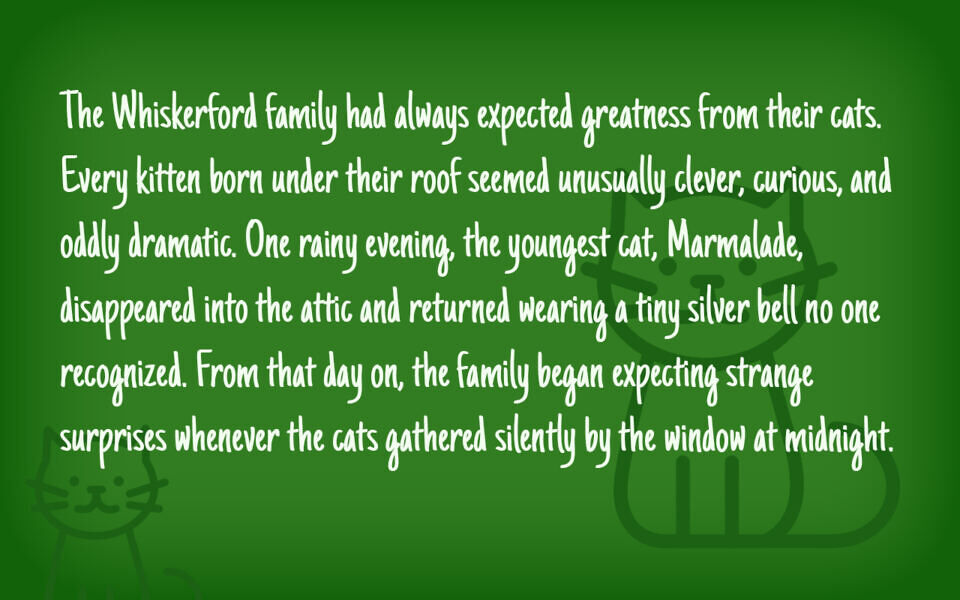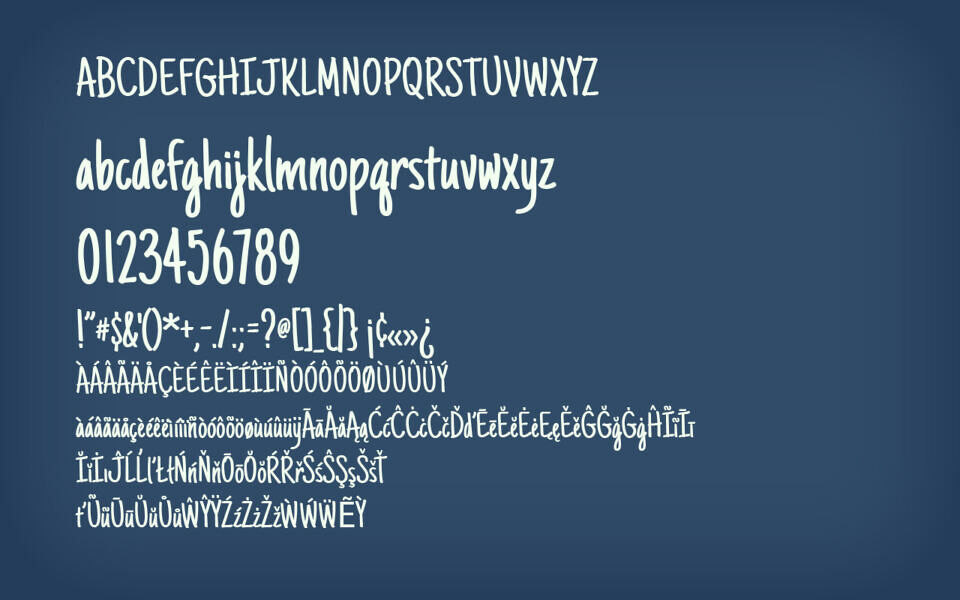
Just Another Hand is a narrow free handwritten brush font designed by Astigmatic. Inspired by the creator’s high school handwriting, it combines expressive personality with clean, controlled strokes for a versatile and readable style. Its casual, hand-drawn appearance makes it ideal for posters, branding, social media graphics, packaging, and creative display projects.